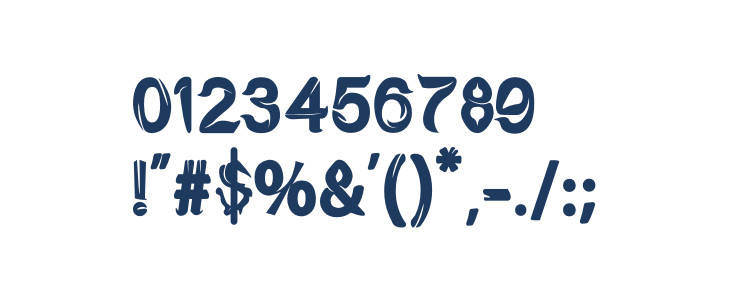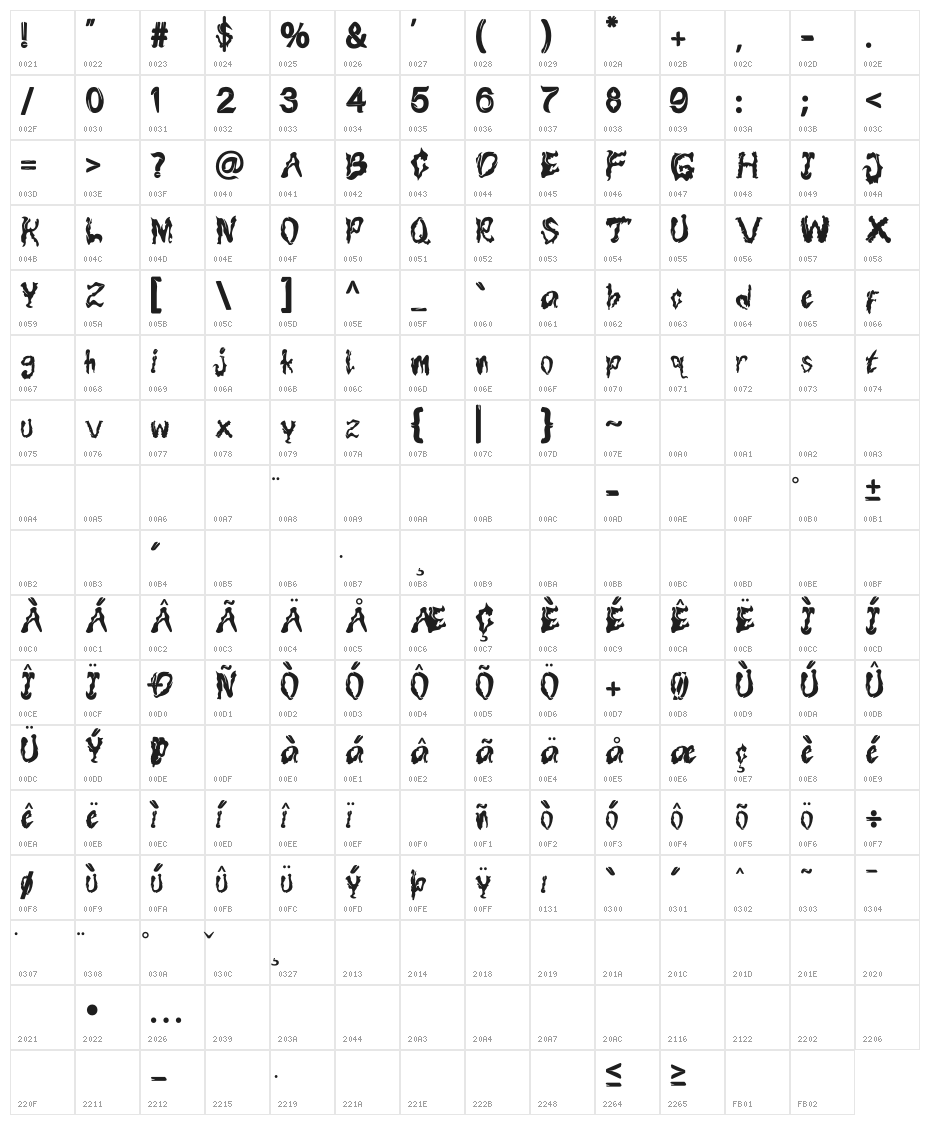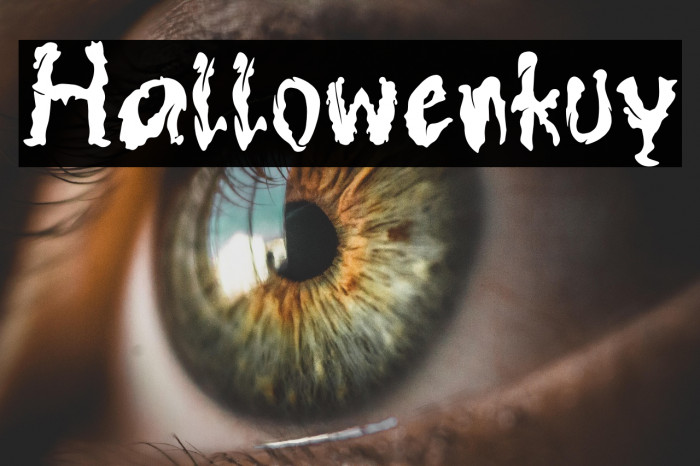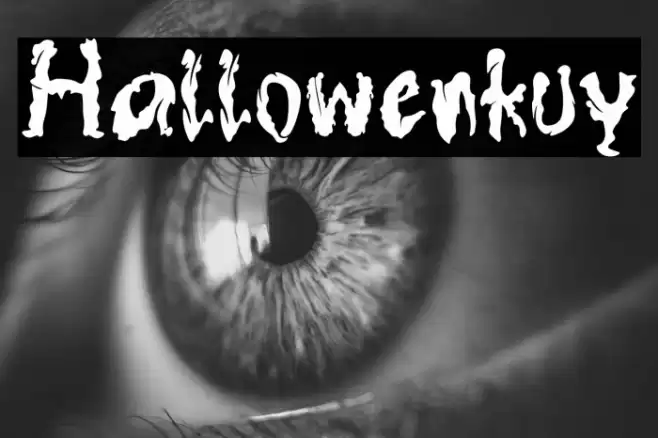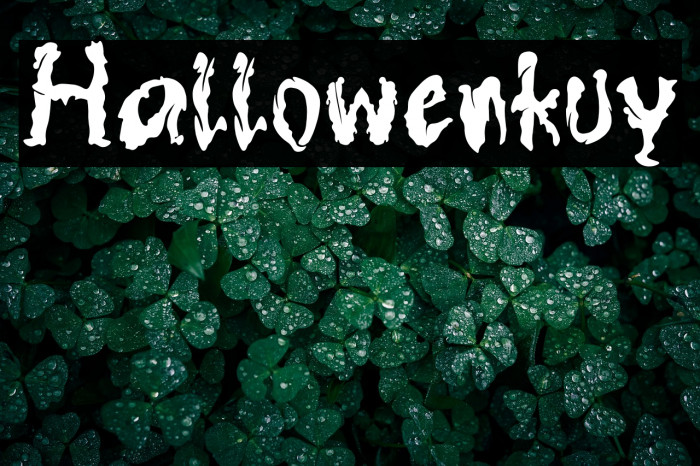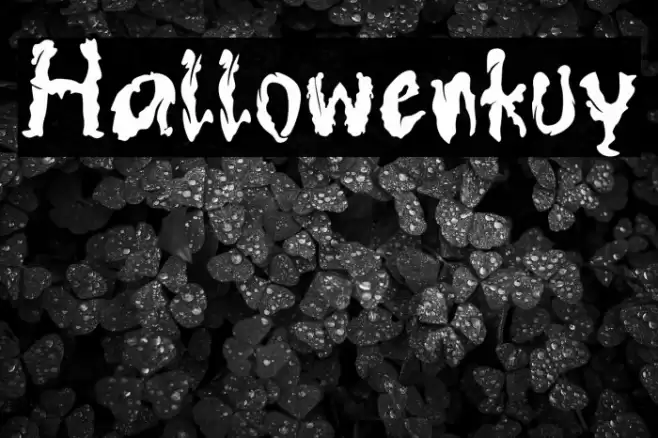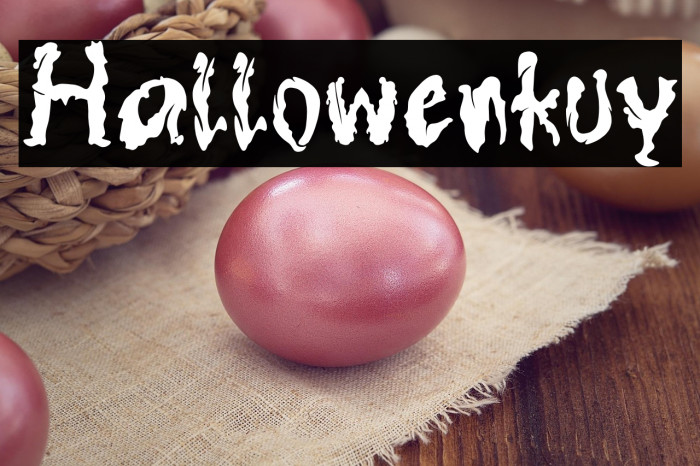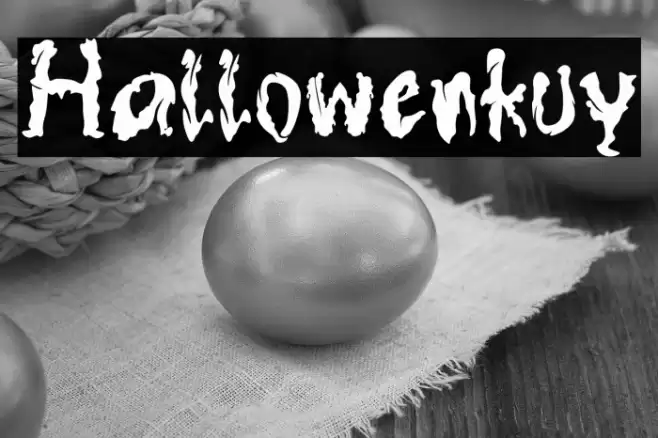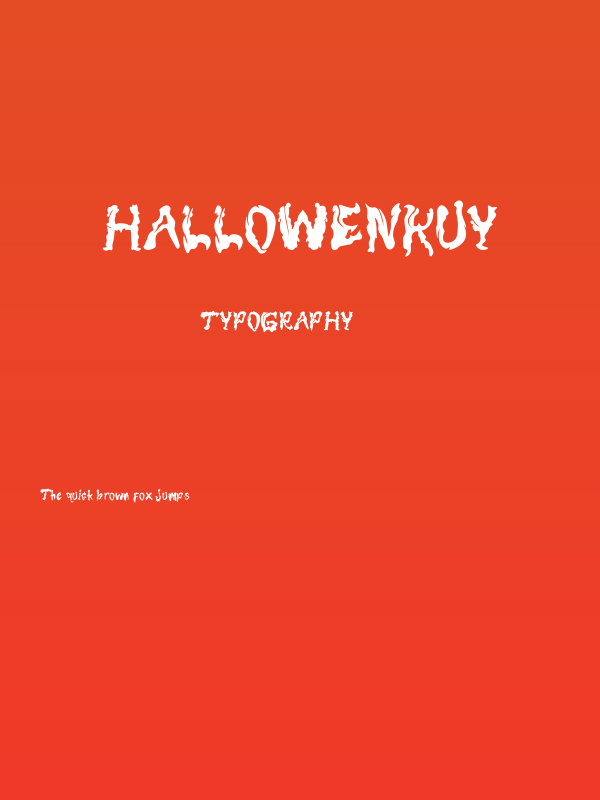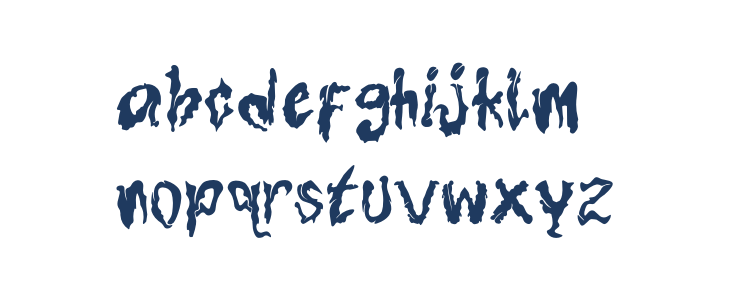
Hallowenkuy Font
This font features a spooky, jagged design reminiscent of dripping or melting forms, perfect for Halloween-themed projects. The uppercase and lowercase letters have an irregular, uneven appearance, adding to the eerie aesthetic. The numbers and special characters maintain this style, ensuring consistency across all glyphs. The bold strokes and high contrast between thick and thin areas enhance its dramatic and eye-catching look, making it ideal for decorative purposes.
Proposed ProjectsIdeal for Halloween invitations, horror movie posters, themed party decorations, and spooky event branding.